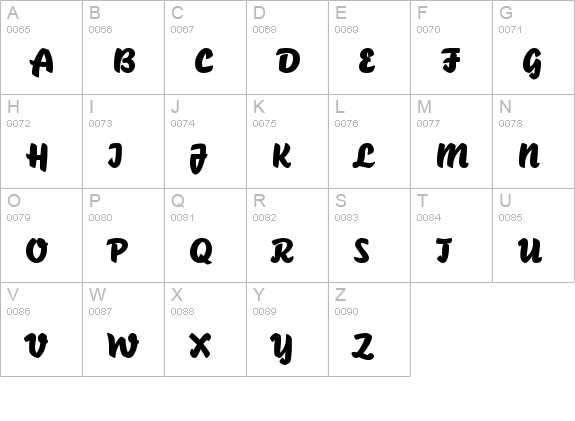
QueenOfCorona Font Details
QueenOfCorona font is a stunning and elegant typeface that exudes regal charm and sophistication. With its intricate letterforms and delicate curves, this font is perfect for adding a touch of luxury to any design project. Whether you're creating wedding invitations, logos, or branding materials, QueenOfCorona font is sure to make a lasting impression. What sets QueenOfCorona font apart is not only its timeless beauty but also its accessibility. This font is available for free download at FontsMarket.com, making it easily accessible to designers and creatives alike. With just a few clicks, you can have this exquisite typeface at your fingertips, ready to elevate your designs to new heights. The versatility of QueenOfCorona font is another reason why it has become a favorite among designers. With a wide range of weights and styles, you can find the perfect variation to suit any project. Whether you're looking for a bold and impactful headline or a subtle and refined body text, this font has got you covered. Furthermore, QueenOfCorona font is incredibly easy to work with. Its clean and well-crafted design ensures legibility at any size, while its smooth curves and balanced proportions make it a joy to use in both print and digital mediums. No matter the context, this font will effortlessly enhance the visual appeal of your designs. In conclusion, QueenOfCorona font is an exceptional typeface that combines elegance, versatility, and accessibility. Its timeless beauty and freely available download at FontsMarket.com make it a must-have for any designer or creative. So why wait? Download QueenOfCorona font today and let its regal charm bring your designs to life.